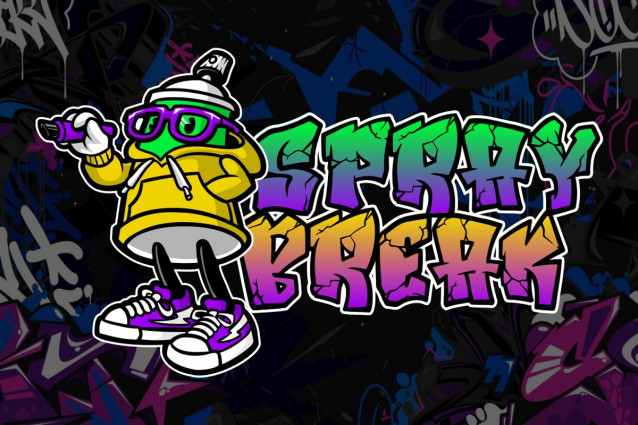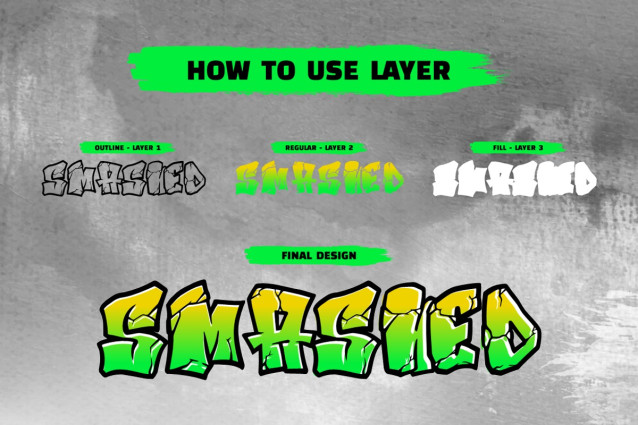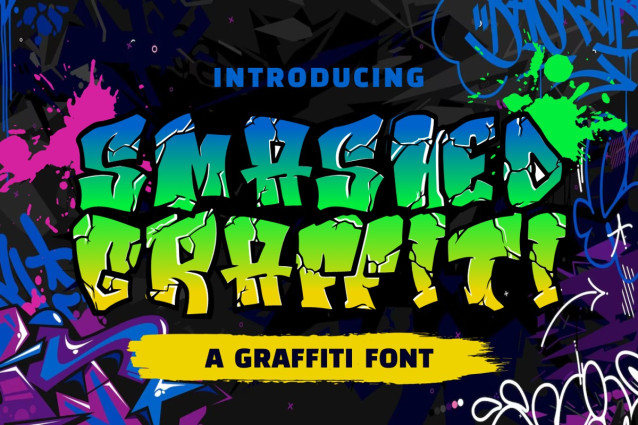
Smashed Graffiti Font
Smashed Graffiti Font, a dynamic and striking graffiti font designed to deliver an edgy, urban aesthetic. Crafted with bold, chunky letters and distinctive broken edges, each character appears as if it’s been powerfully fractured, adding a unique, rebellious flair to your designs. The detailed cracks and jagged outlines offer a high-impact visual appeal, perfectly capturing the gritty essence of street culture. With its vibrant layered style—consisting of outline, regular, and fill layers—this font lets you creatively customize the color and depth, making it a versatile tool to amplify your message through eye-catching typographic effects.
Perfect for projects that demand attention, Smashed Graffiti is ideal for branding, logos, posters, streetwear packaging, urban-themed magazine covers, and compelling movie titles. Its lively style excels in crafting standout stickers and bold event invitations that resonate deeply with a youthful, energetic audience. Additionally, this font seamlessly integrates into artistic crafts, compelling book covers, and creative business presentations. Make your designs shout louder with the raw power and authentic vibe of Smashed Graffiti—a font that turns every creative project into a captivating street art statement.